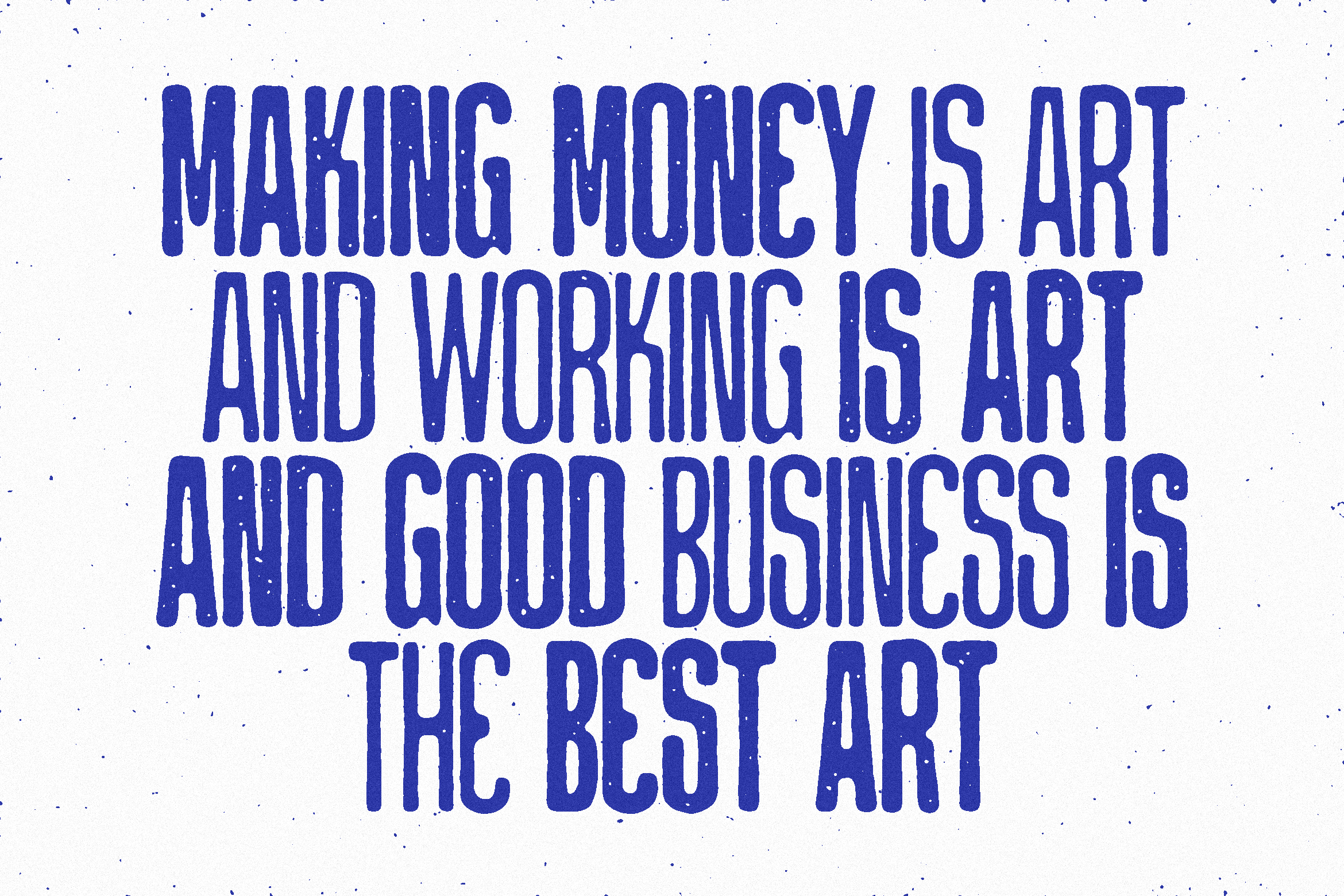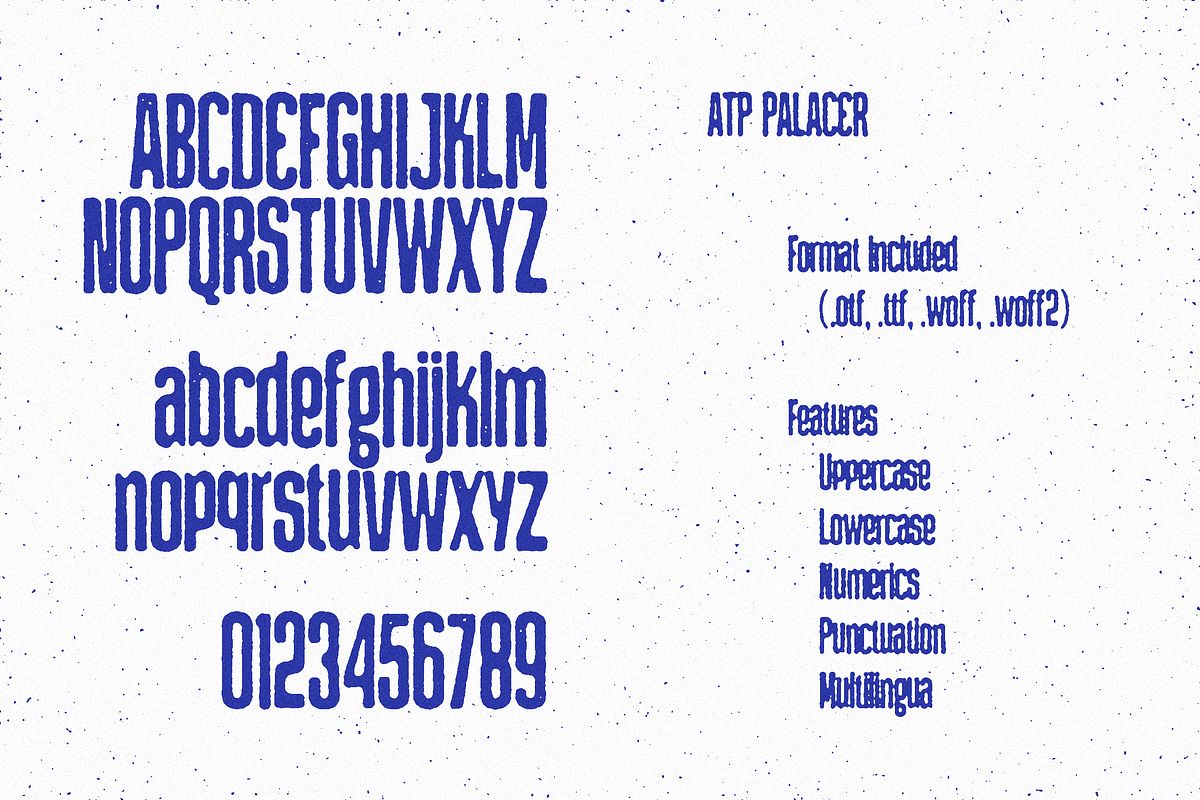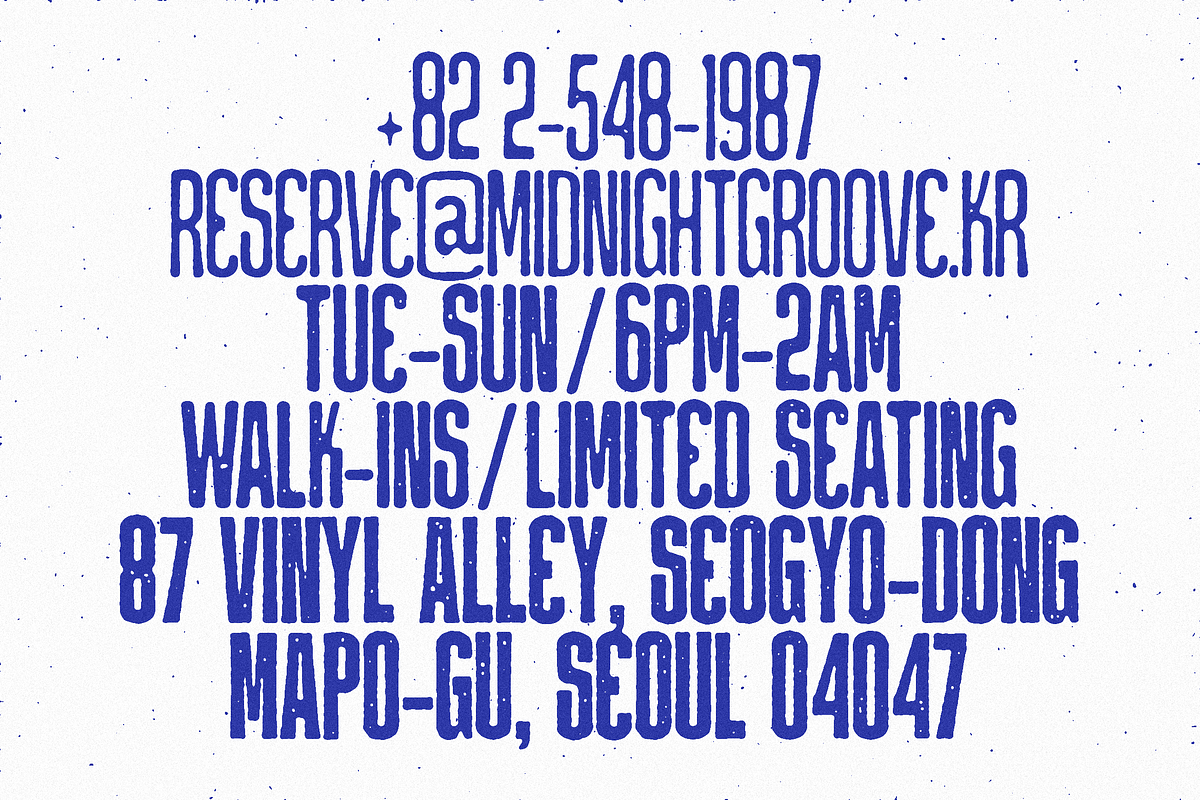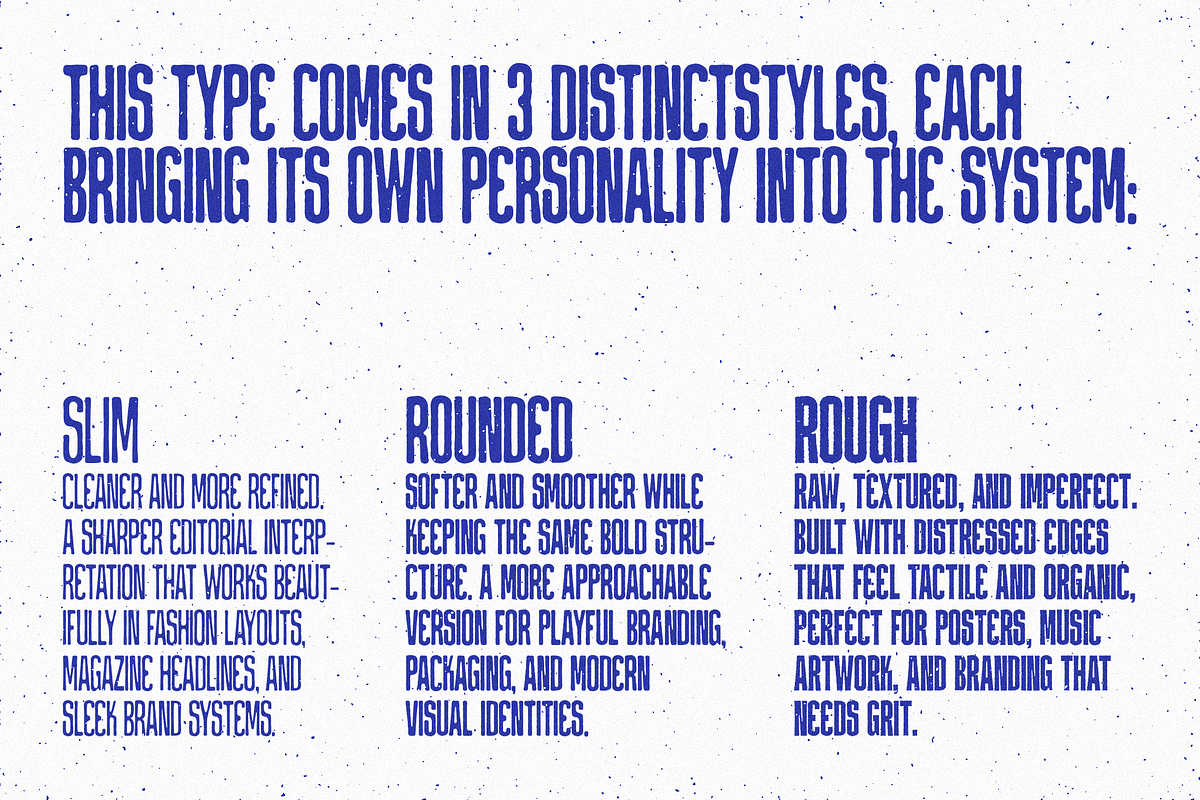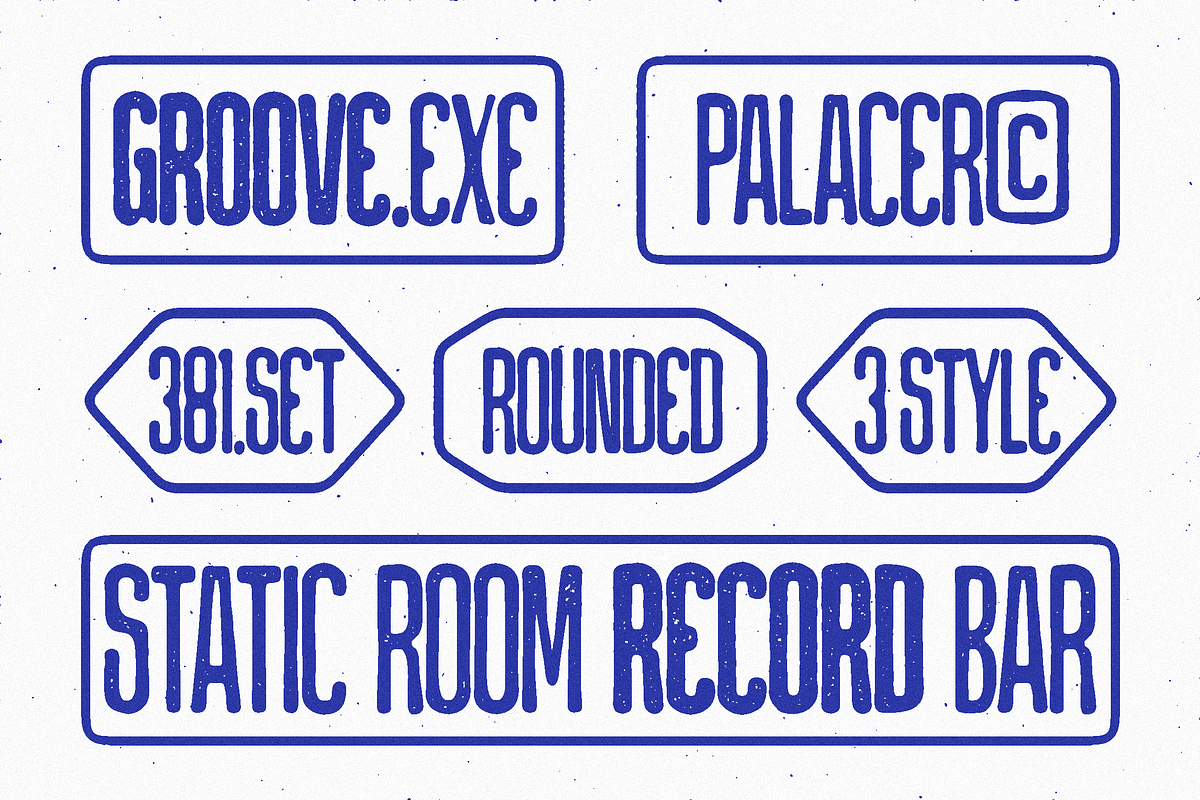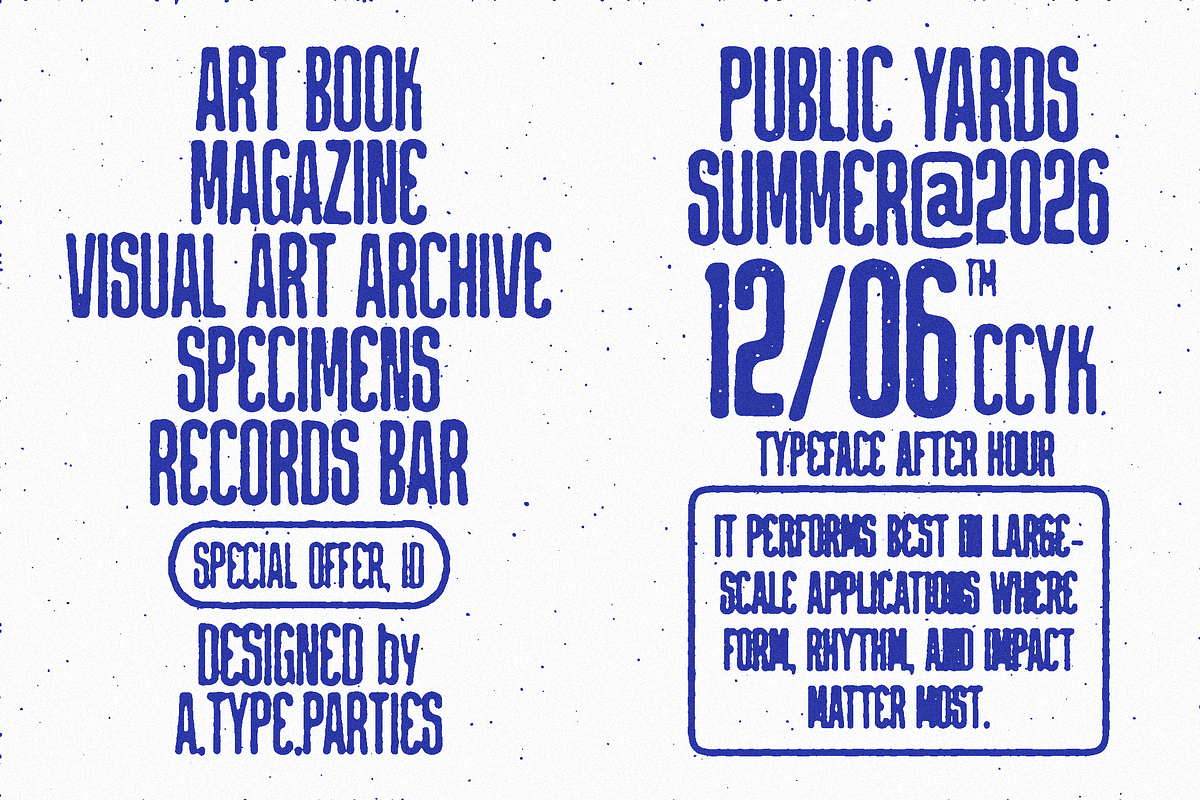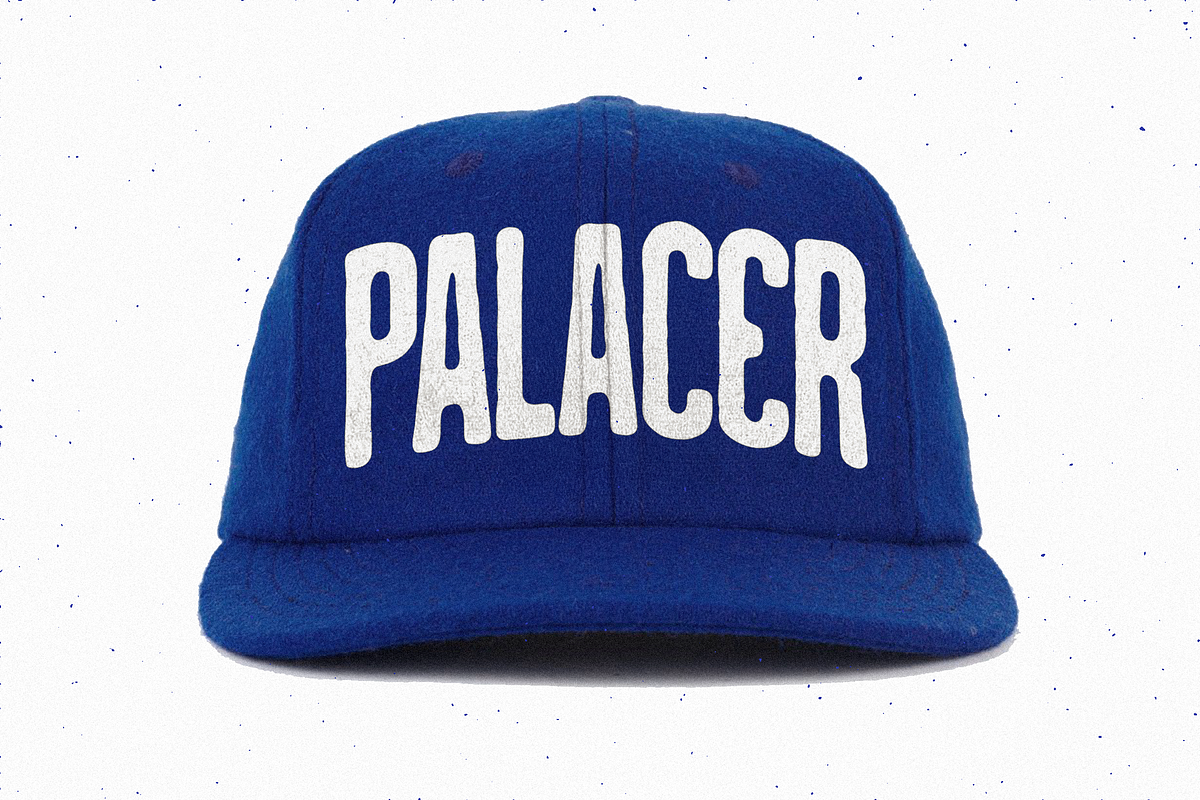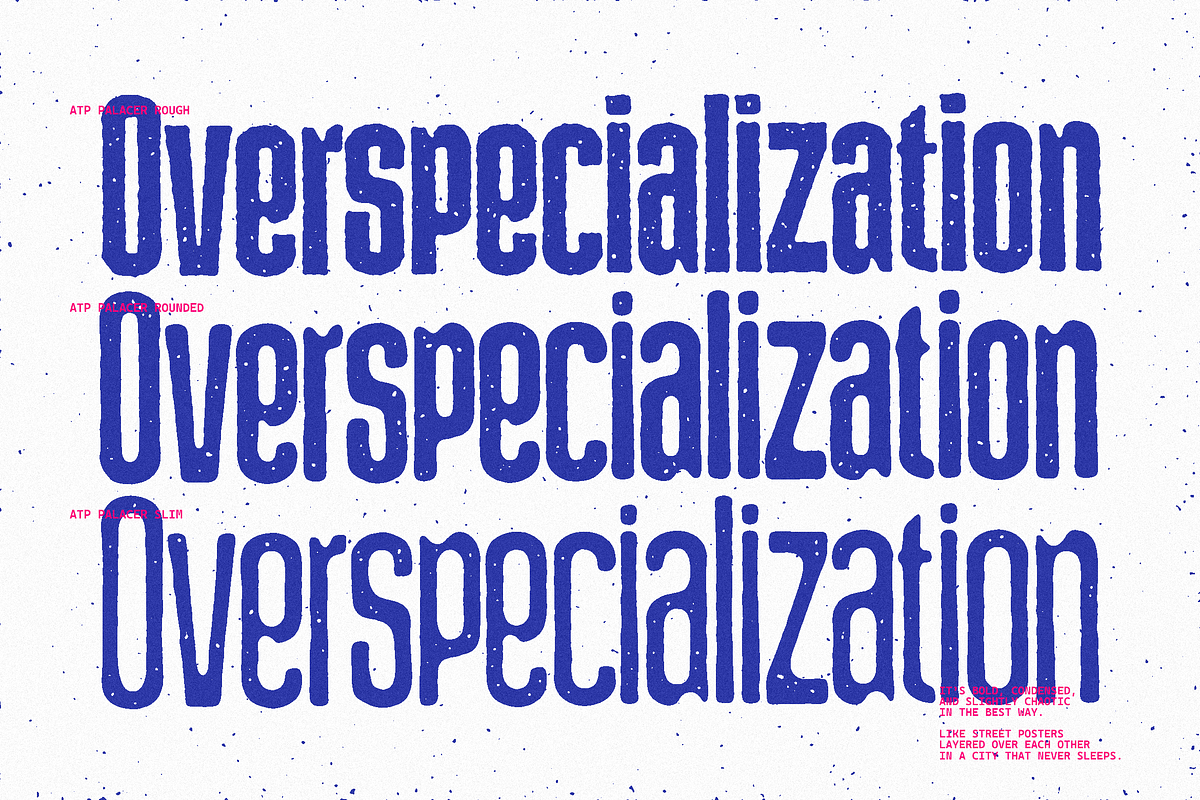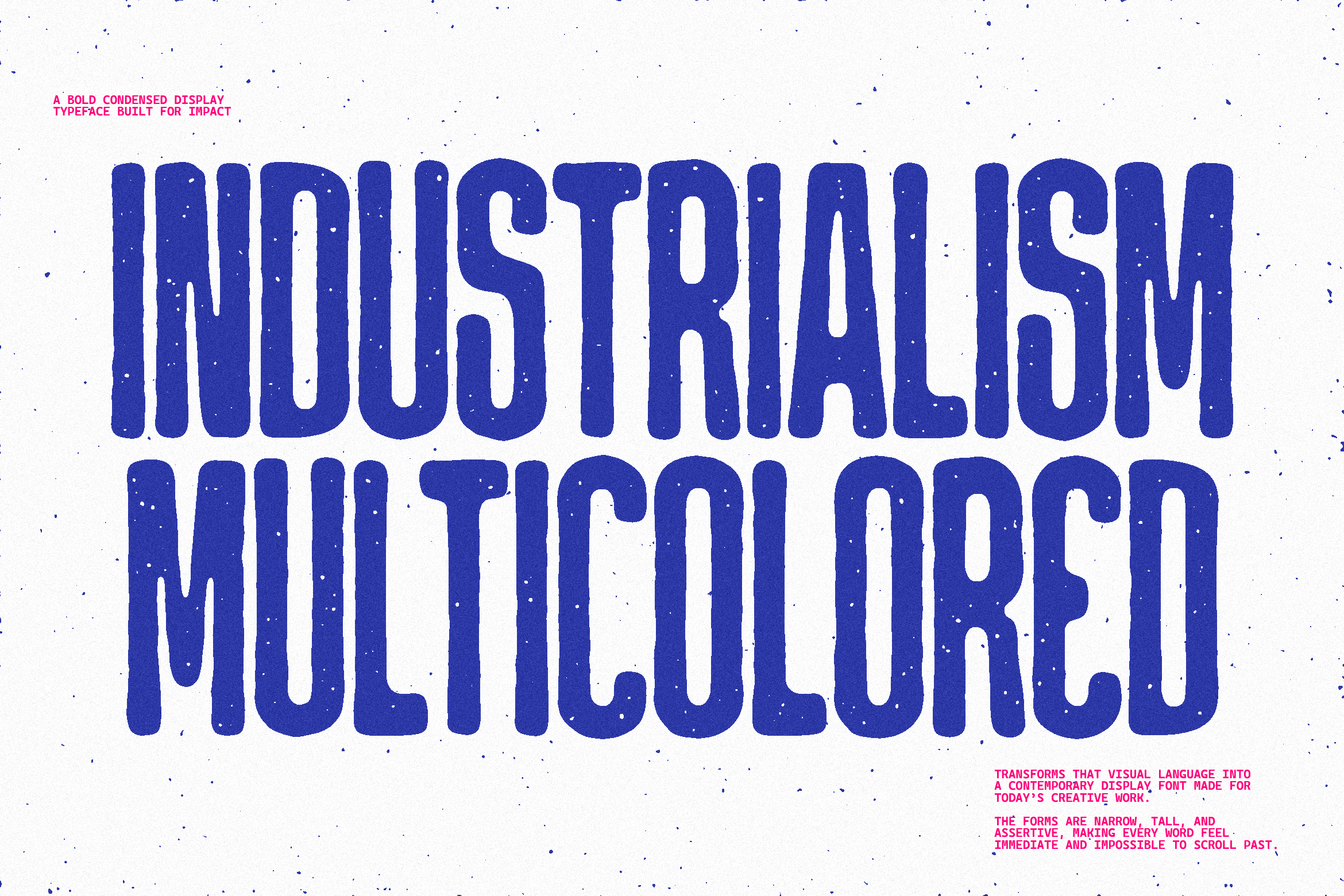
Palacer Rough - Bold Condensed Font
PALACER is a bold condensed display typeface built for impact. Designed with strong vertical proportions and tight spacing, it captures the energy of oversized headlines, underground posters, and modern branding systems. It carries that raw editorial tension—where every letter feels packed with weight, movement, and presence. Inspired by vintage print culture, street poster typography, and industrial-era headlines, PALACER transforms that visual language into a contemporary display font made for today’s creative work. The forms are narrow, tall, and assertive, making every word feel immediate and impossible to scroll past.
This type family comes in 3 distinct styles, each bringing its own personality into the system